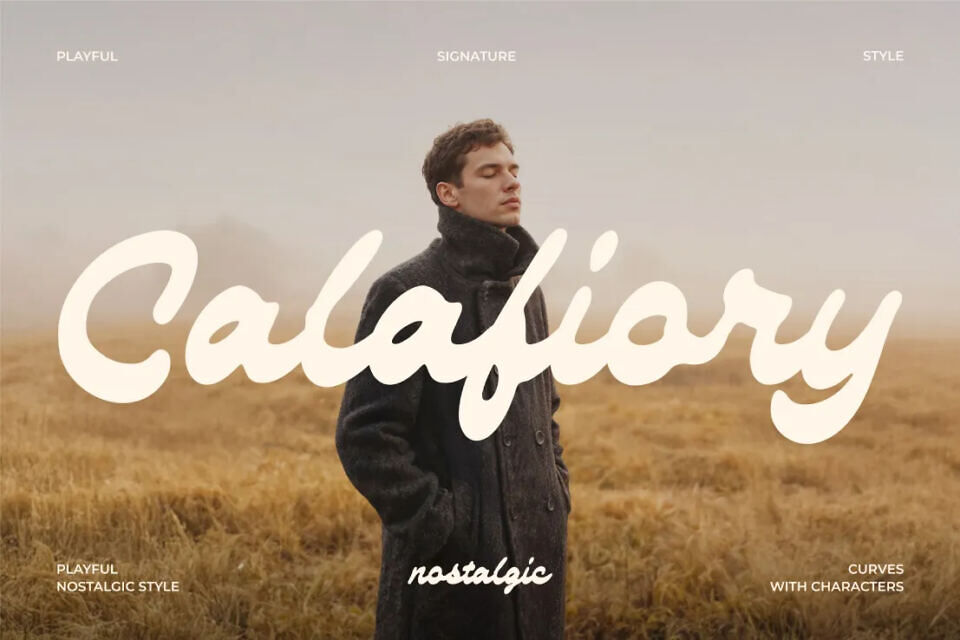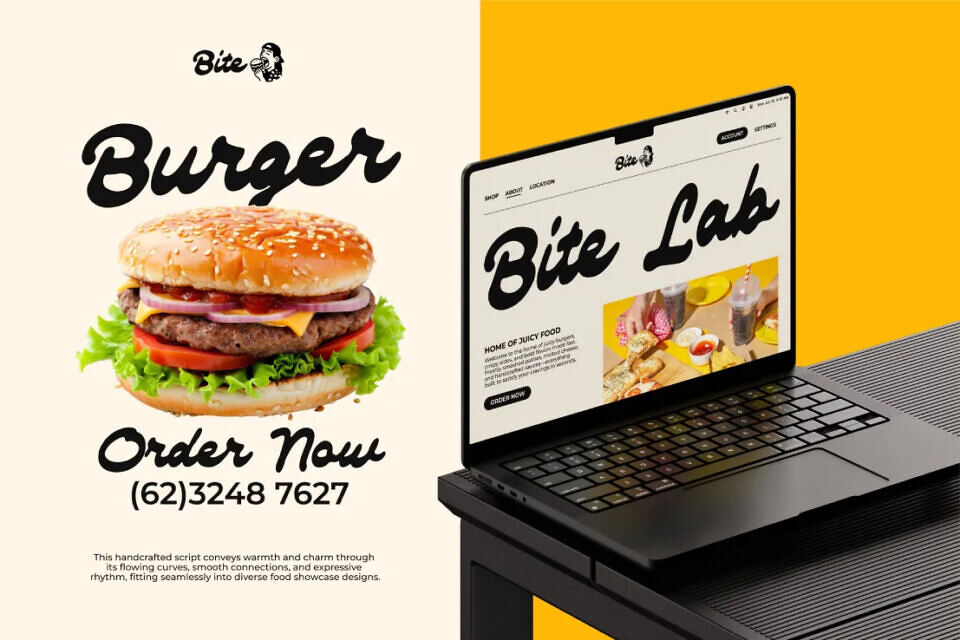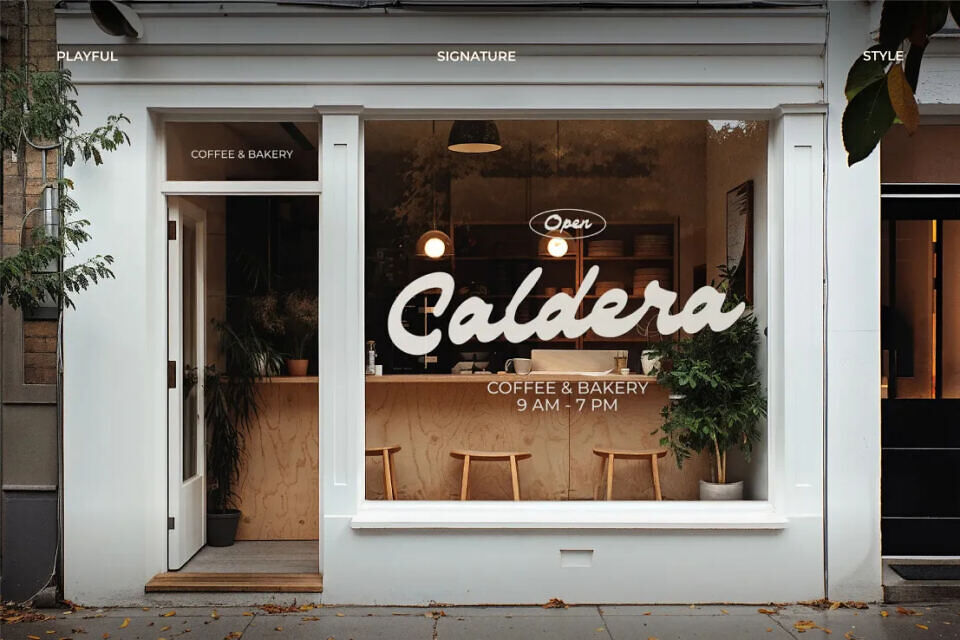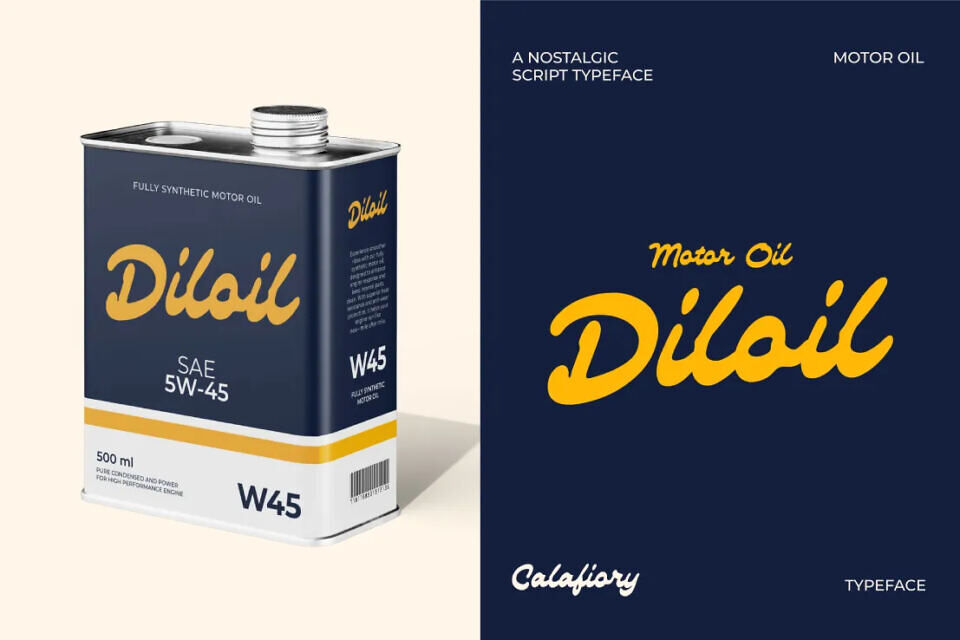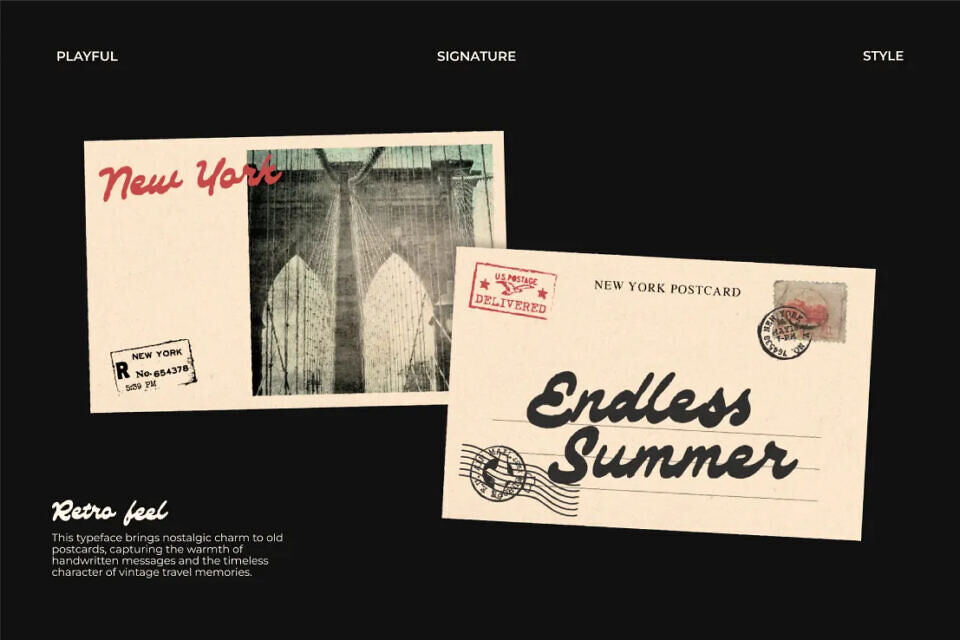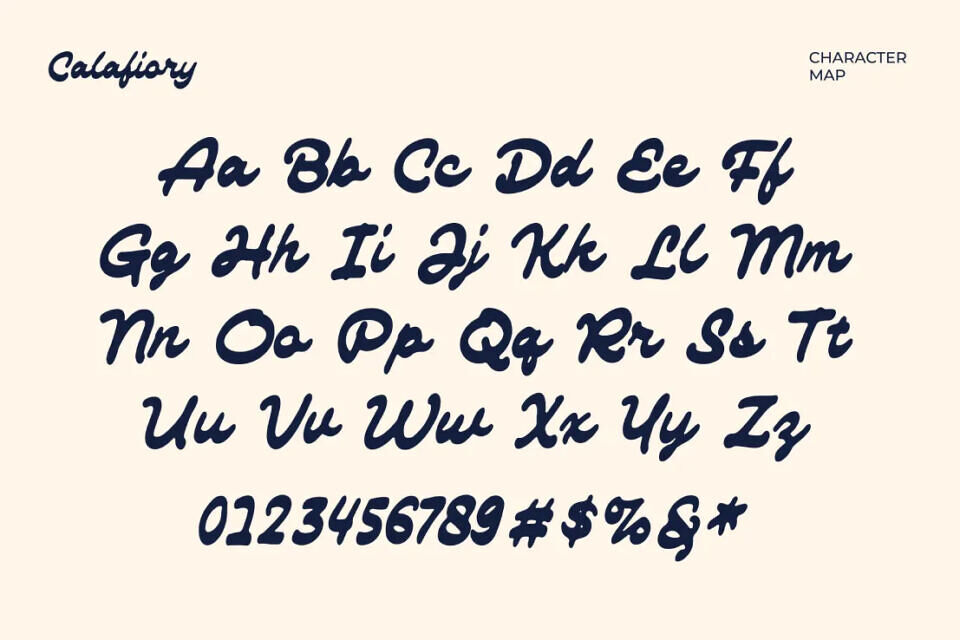
Calafiory Font
Calafiory is a modern cursive font characterized by its thick, bold strokes and fluid, wavy movement. Designed by GraphicSauce, it blends an edgy, liquid aesthetic with a feminine touch, making it ideal for the food and beverage industry.
With over 300 characters and 306 glyphs, this extra-bold typeface excels in branding, logos, and advertisements. Its chunky yet elegant letterforms create a professional, eye-catching presence for any project requiring a “tasty” and contemporary visual identity.